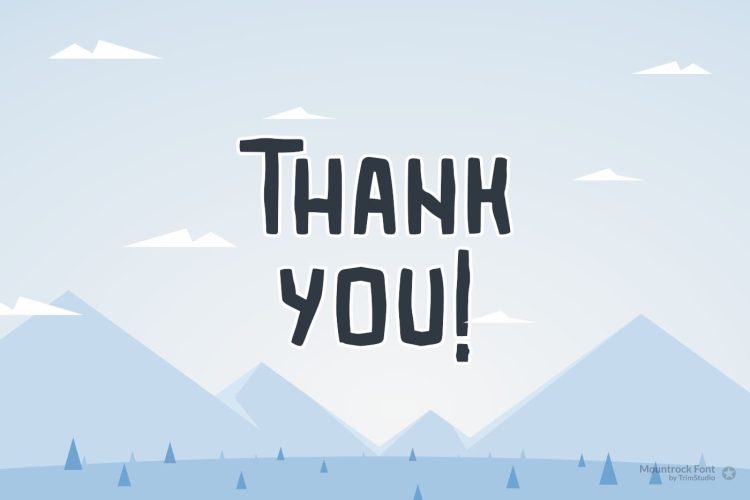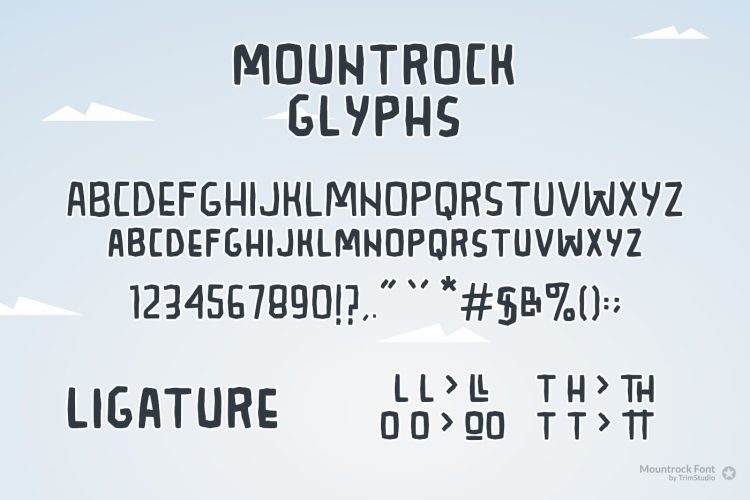
Mountrock is a blocky and casual display font with an incredible feel. It will add a cool touch to any design project!
Mountrock – Brick Playful Display Font